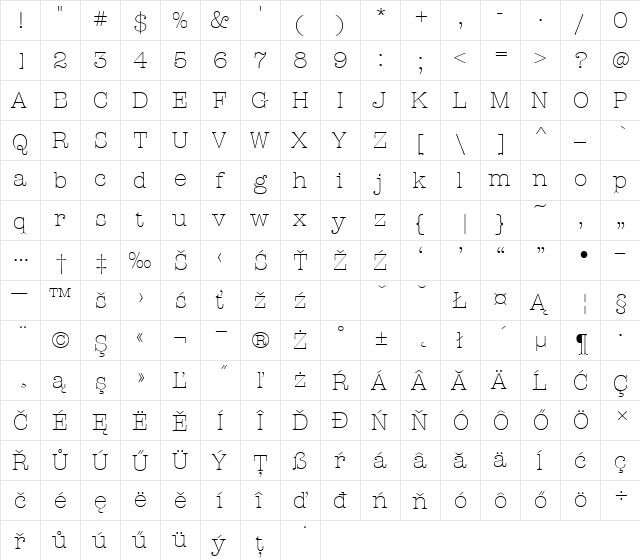
AmeriTypItcDEELig Regular
Design Context for AmeriTypItcDEELig Typeface
AmeriTypItcDEELig takes a measured approach to typography — its balanced proportions and neutral character make it a reliable workhorse for both digital and print work.